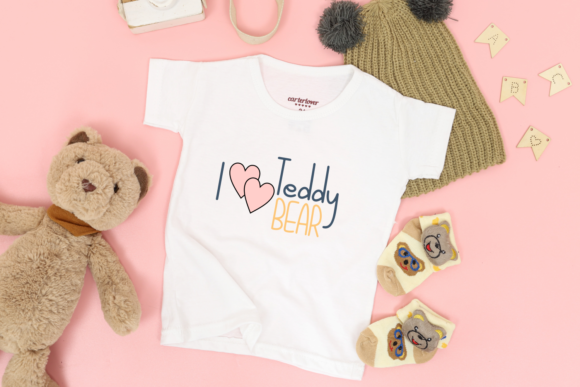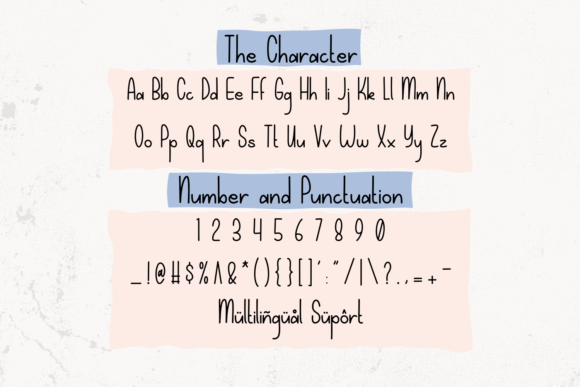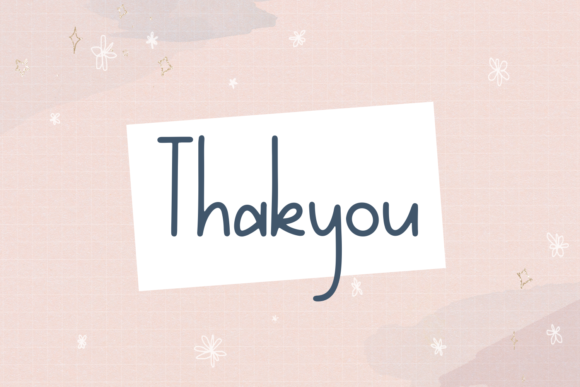
The Birth of a New Design Era: Hello Thirty Font
As a designer, there’s nothing quite like the rush of excitement when you stumble upon the perfect font to bring your vision to life. For me, it was the moment I laid eyes on the Hello Thirty Font – its delicate, whimsical lines and playful charm instantly sparked a world of creative possibilities. This enchanting font has been a game-changer for me, and I’m excited to share its magic with you.
Hello Thirty Font is a versatile, handwritten font designed to elevate your designs with a touch of sophistication and warmth. Whether you’re working on a product packaging project, creating a stunning magazine cover, or crafting the perfect social media post, this font is sure to add a personal touch that resonates with your audience. For designers, the Hello Thirty Font offers a unique opportunity to express their creativity and connect with their viewers on a deeper level.
With its adaptability and charm, the Hello Thirty Font is a valuable addition to any designer’s toolkit. Its slim, cute lines make it perfect for a wide range of applications, from branding projects to wedding invitations. Say hello to a new era of design possibilities with the Hello Thirty Font – your creativity will thank you!
Hello Thirty Font Key Features
- Font Size: The font family includes 6 different font sizes: Thin, Light, Regular, Medium, Bold, and Heavy, offering a range of options for different design needs.
- Unique Characteristics: The font features a modern, sans-serif design with a friendly and approachable feel, making it suitable for a wide range of applications, including branding, advertising, and editorial content.
- Character Set: Hello Thirty Font includes a comprehensive character set, including Latin, Cyrillic, and Greek alphabets, as well as a range of punctuation and symbol glyphs.
Hello Thirty Font Review
As a designer, I was excited to dive into the Hello Thirty Font and see what it had to offer. ✨ One of the first things I noticed was its clean and modern aesthetic, making it perfect for contemporary designs. The font’s versatility allows it to work well in a variety of contexts, from headings to body text.
Another standout feature is its excellent legibility, making it easy to read even at smaller font sizes. ✨ The font’s weight and spacing are well-balanced, ensuring that text flows smoothly and doesn’t feel cluttered. Additionally, the font’s open-source nature makes it a great option for designers working on a budget.
- ⚠️ Limited language support, which may be a concern for designers working on projects that require multiple languages.
- ⚠️ Some users have reported issues with font rendering on certain devices, although this may be resolved in future updates.
Overall, I would say that the Hello Thirty Font is a solid choice for designers looking for a clean and modern font. While it may have some limitations, its strengths far outweigh its weaknesses. With some careful consideration and planning, I believe this font can be a valuable addition to any design project.
The “Hello Thirty Font” is ideal for:
Creating modern and trendy designs.
Adding a touch of sophistication to business documents.
Designing social media graphics and advertisements.